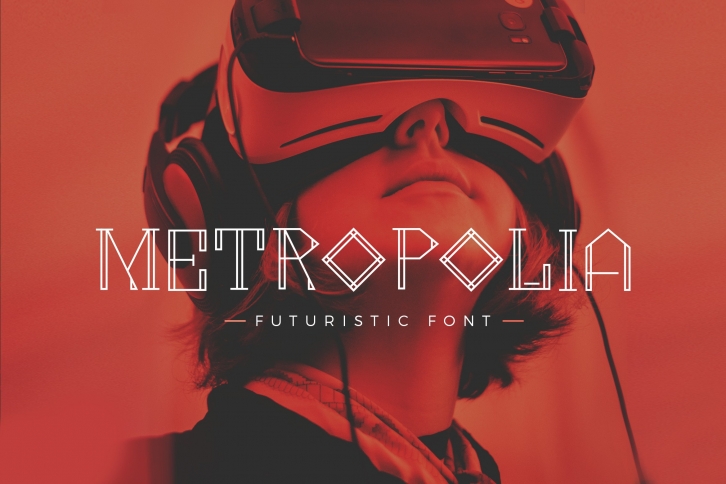
Metropolia is a trendy and unique font with an authentic style. It was designed by micromove and it's a great choice for creative people who need such a font. It was released on November 3, 2017 and the file size is 21.91 MB. Metropolia will add an organic vibe to any design idea!